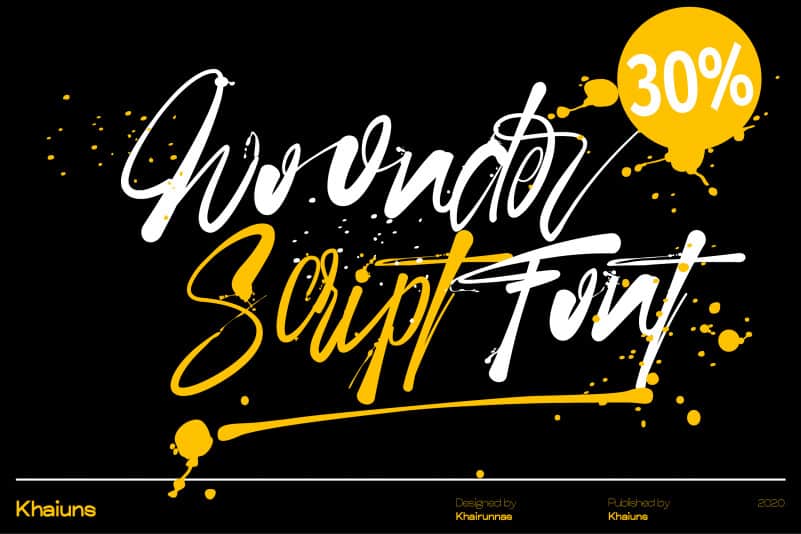
Woonder Font
Woonder Script Font
Woonder Script Fonts, a handcrafted brush font! This bold, free-flowing, confident brush font is designed to be easily customized to your liking with 2 letter sets, also featuring swashes and some unique textures. Find a unique Woonder Script Font by adding a plus (+) to each letter and number and you’ll have a cool letter.